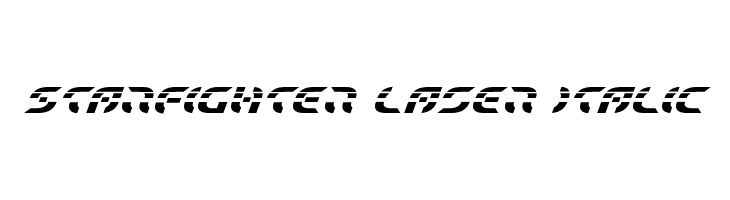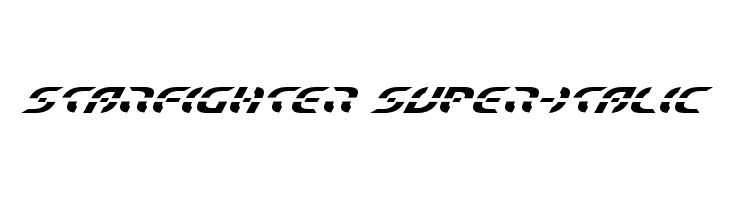
A futuristic, geometric font with a bold, 3D appearance.
A futuristic, 3D italic font with bold, angular lines and a tech-inspired look.
A bold, futuristic font with geometric and stencil-like characteristics.
A bold, futuristic 3D font with geometric shapes and sharp angles.
A bold, 3D italic font with a futuristic and angular design.
A futuristic, bold, and expanded font with geometric and segmented letterforms.
A bold, expanded, and italicized font with a futuristic and dynamic design.
A futuristic, bold font with a gradient effect created by horizontal lines.